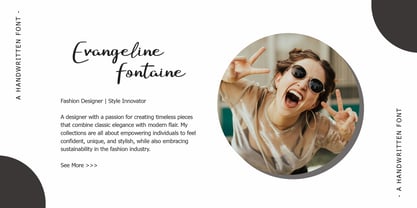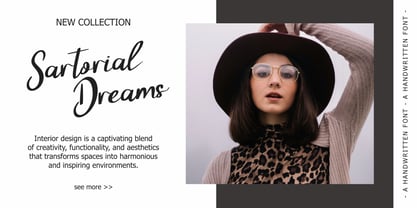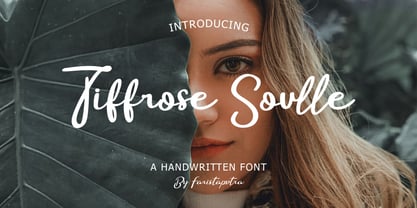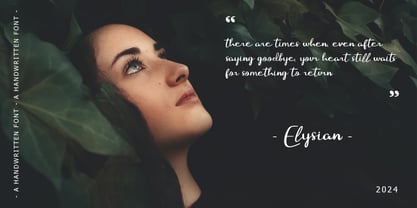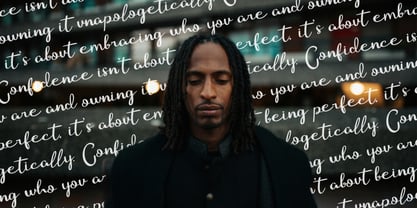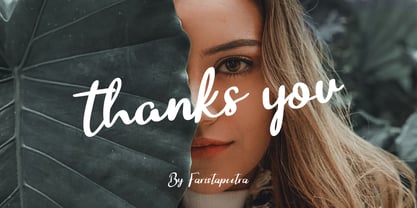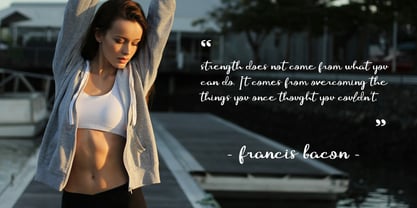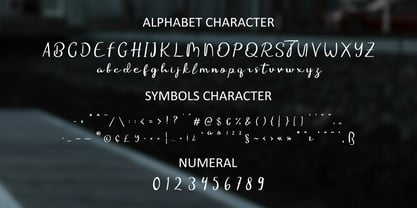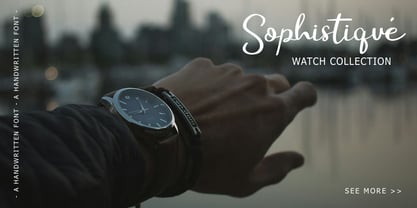
FA Tiffrose Soulle
by Faristaputra
The FA Tiffrose Soulle Font Family was designed by Frederik Aristaputra and published by Faristaputra. FA Tiffrose Soulle contains 3 styles and family package options. More about this family
Tiffrose Soulle is a script font that exudes elegance and a personal touch typical of hand-lettering. With its smooth curves and soft flow of letters, this font brings a romantic and exclusive feel, perfect for designs that require an elegant and classy impression.
Designers: Frederik Aristaputra
Foundry: Faristaputra